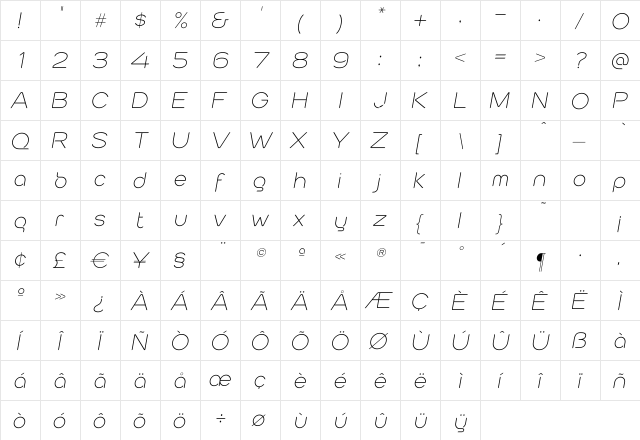
CabourgLight Oblique Regular Font Preview
Design Context for CabourgLight Oblique Typeface
CabourgLight Oblique takes a measured approach to typography — its balanced proportions and neutral character make it a reliable workhorse for both digital and print work. The dynamic lean of this cut emphasises speed and emphasis in any layout. Its slender proportions lend an understated elegance to any composition.